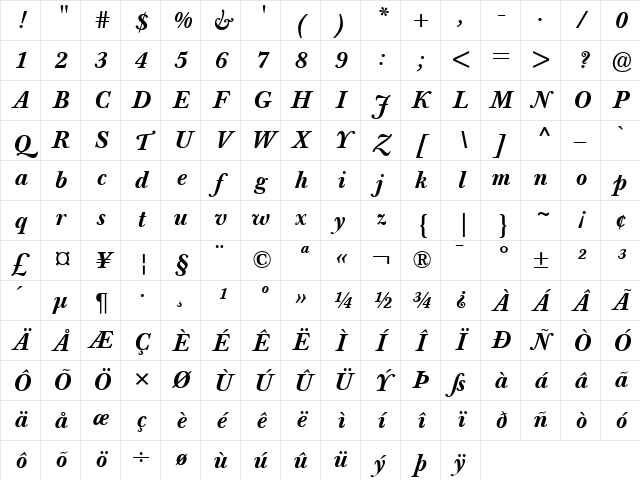
Berthold Baskerville Book Medium Italic
Design Context for Berthold Baskerville Book
Berthold Baskerville Book is a composed and adaptable typeface that performs quietly and consistently across a wide range of design contexts. The slanted form adds forward momentum and visual energy.